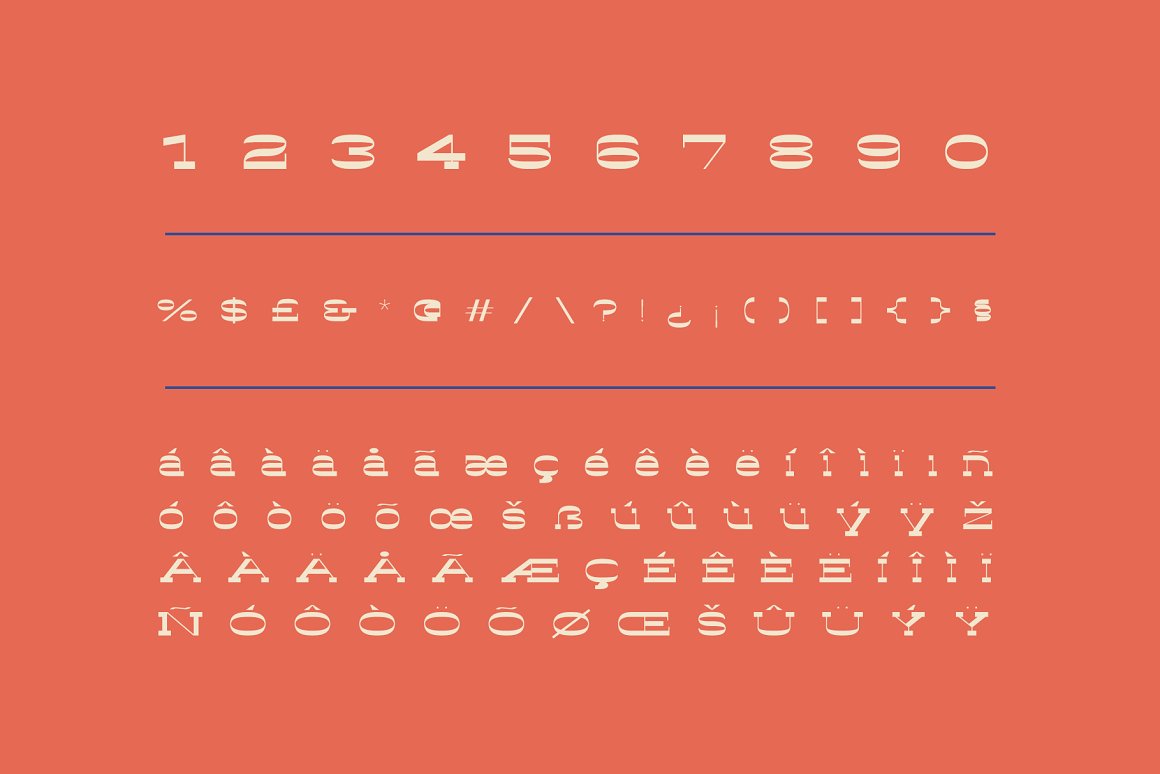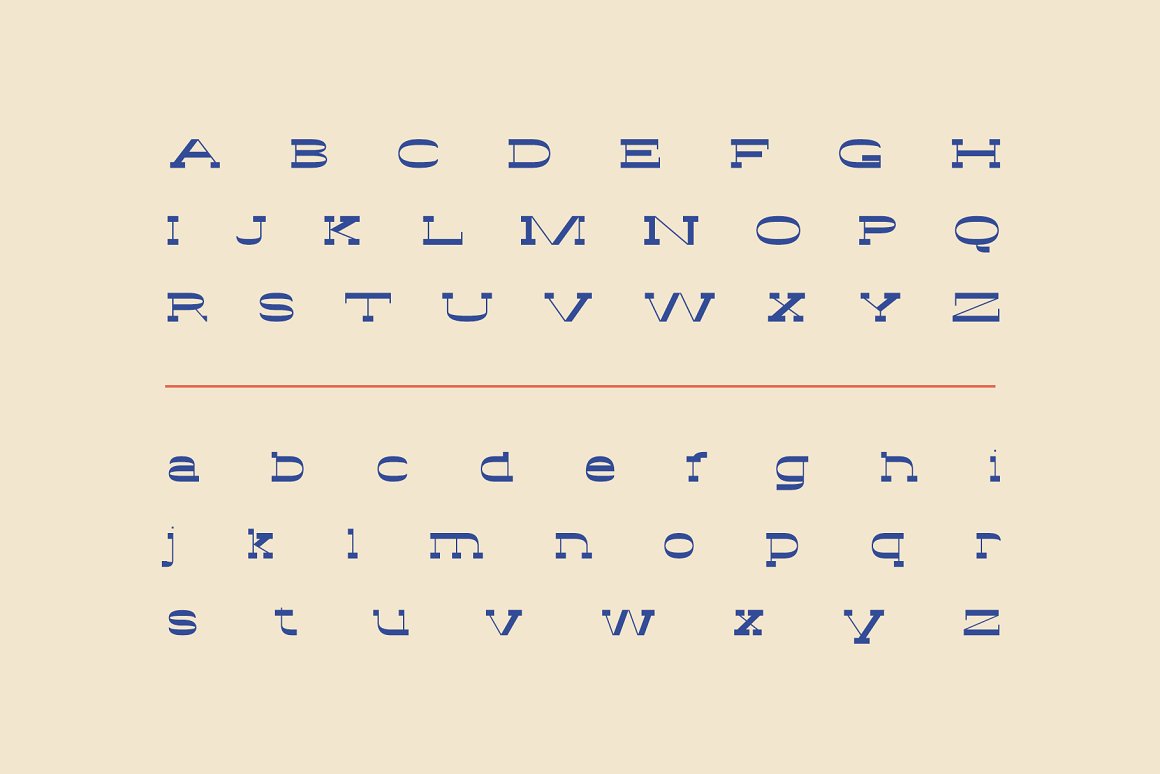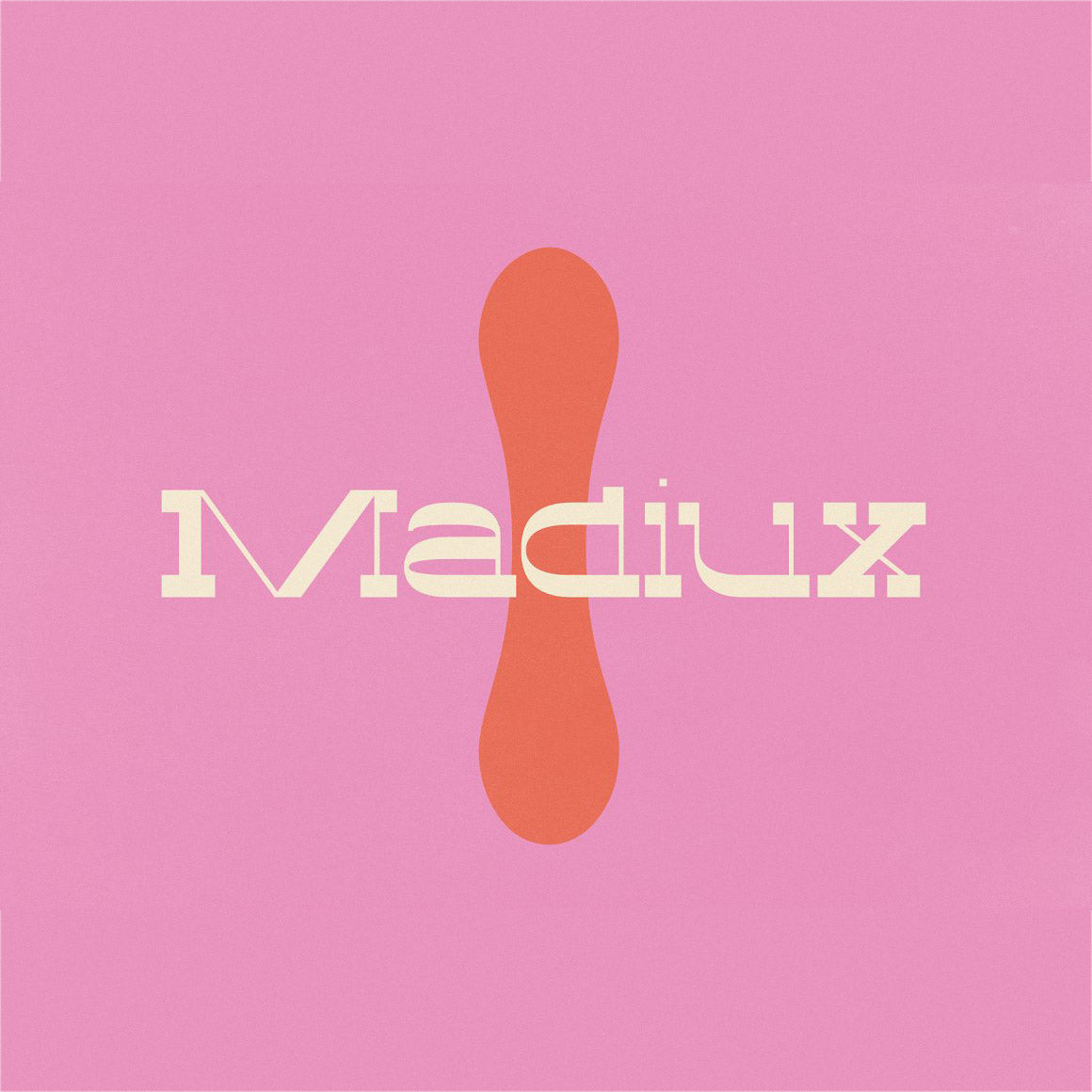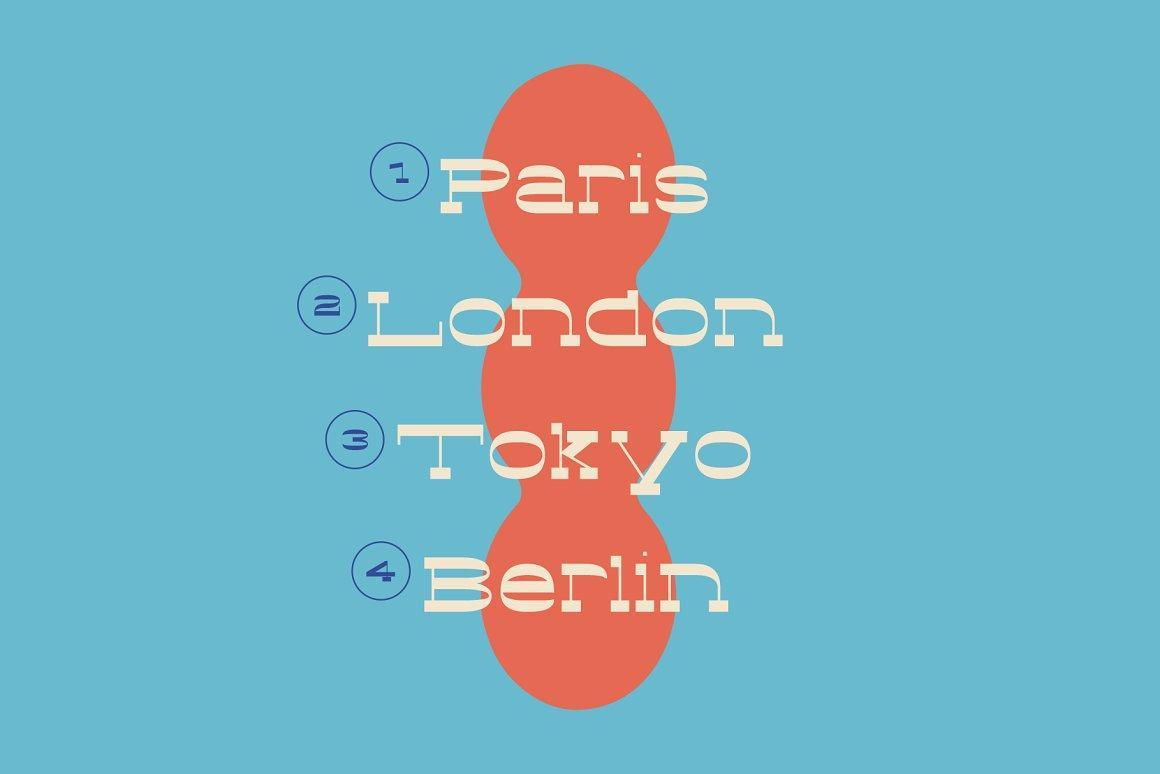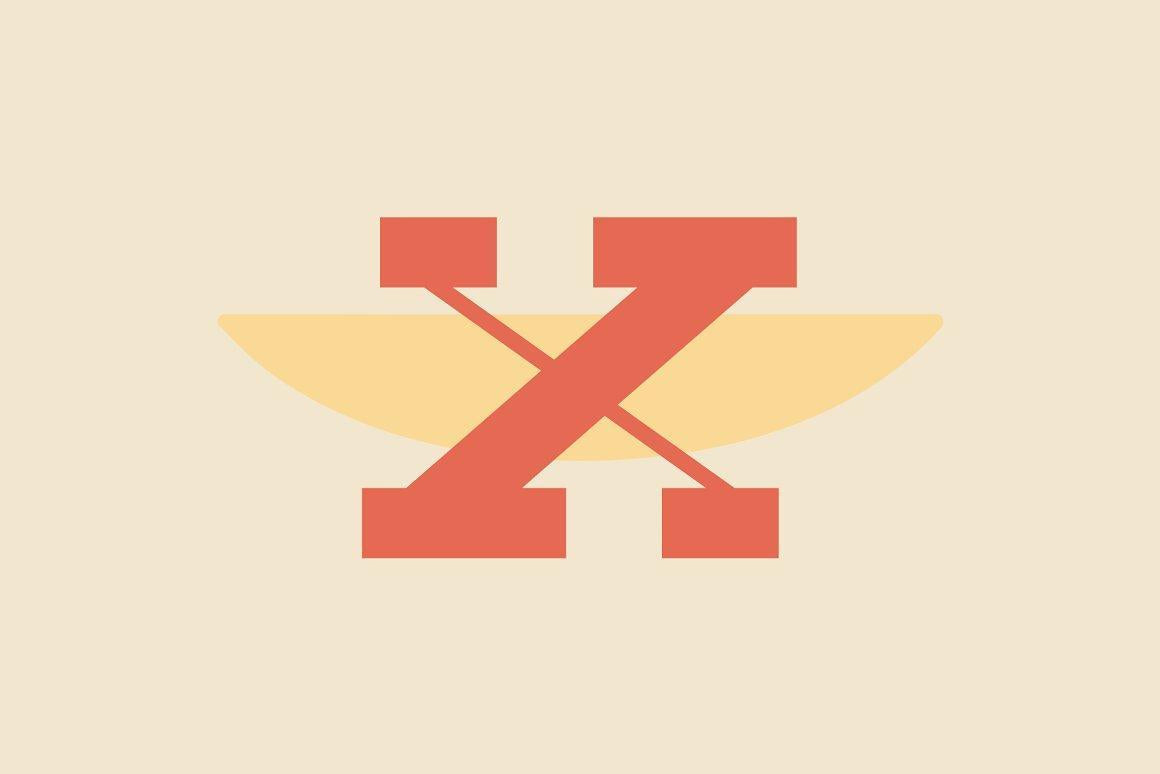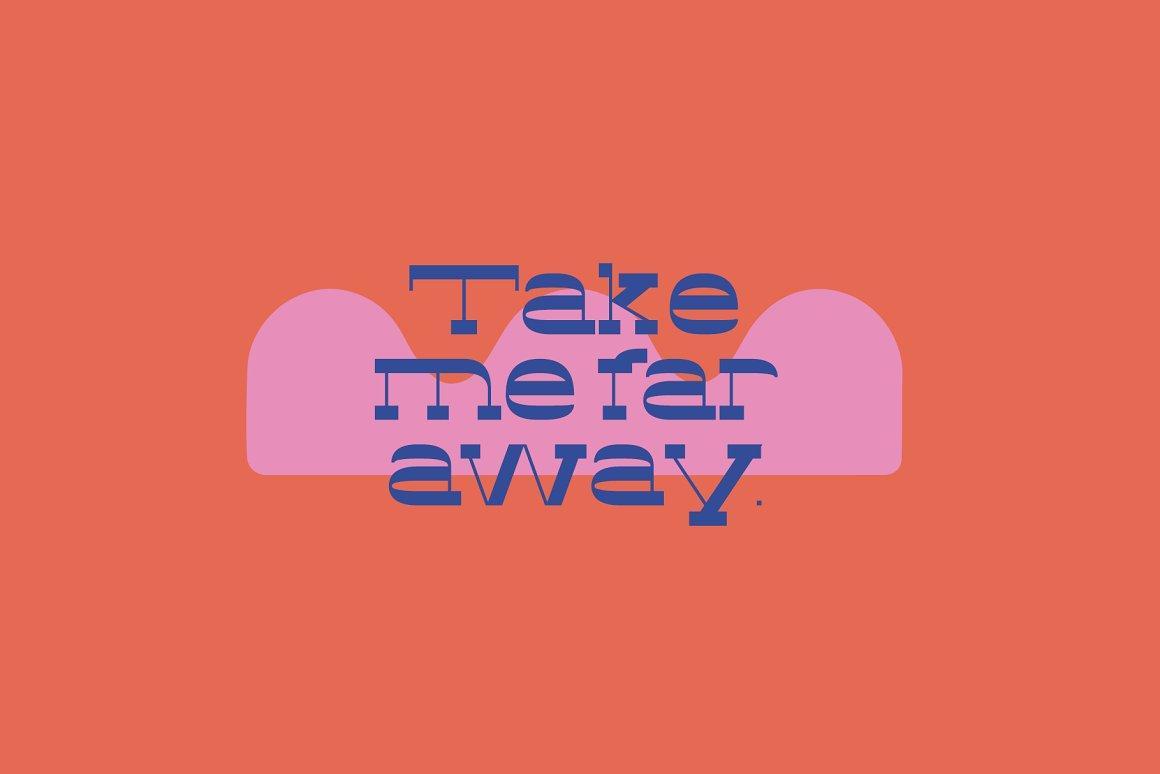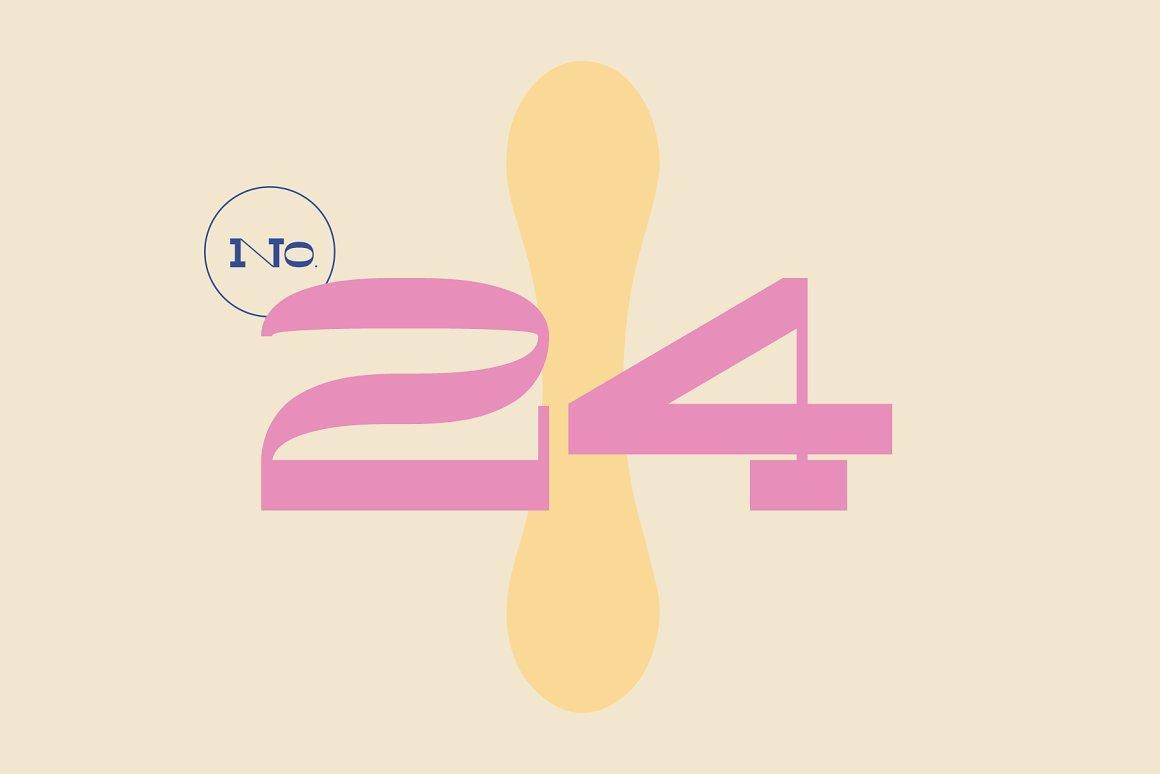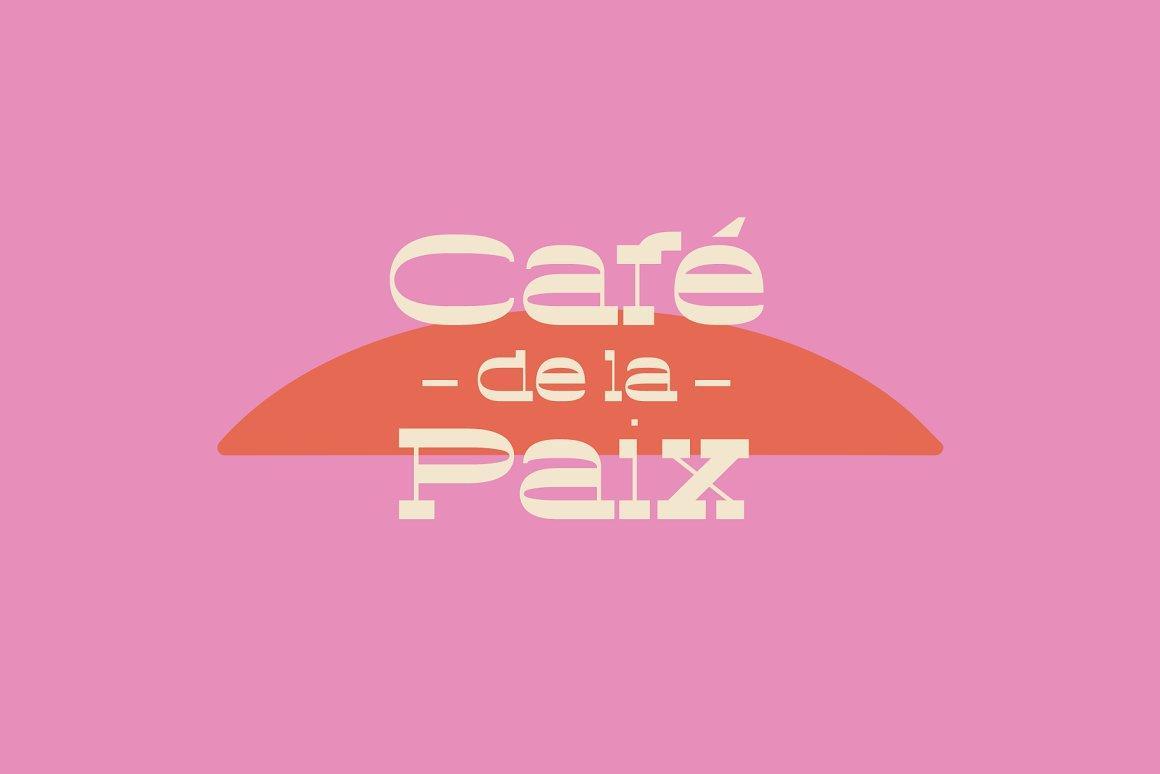
Police Madiux
The Madiux Typeface is a retro-modern, Parisian-inspired display font characterized by a blend of smooth curves and straight edges, and a striking contrast between thin and bold. It includes uppercase, lowercase, numbers, punctuation, and multilingual characters.
Ideal for retro-modern graphic design and brand identity projects. Perfect for posters, branding, and album covers, ensuring an elegant and eye-catching visual impact with its bold contrast and vintage charm.